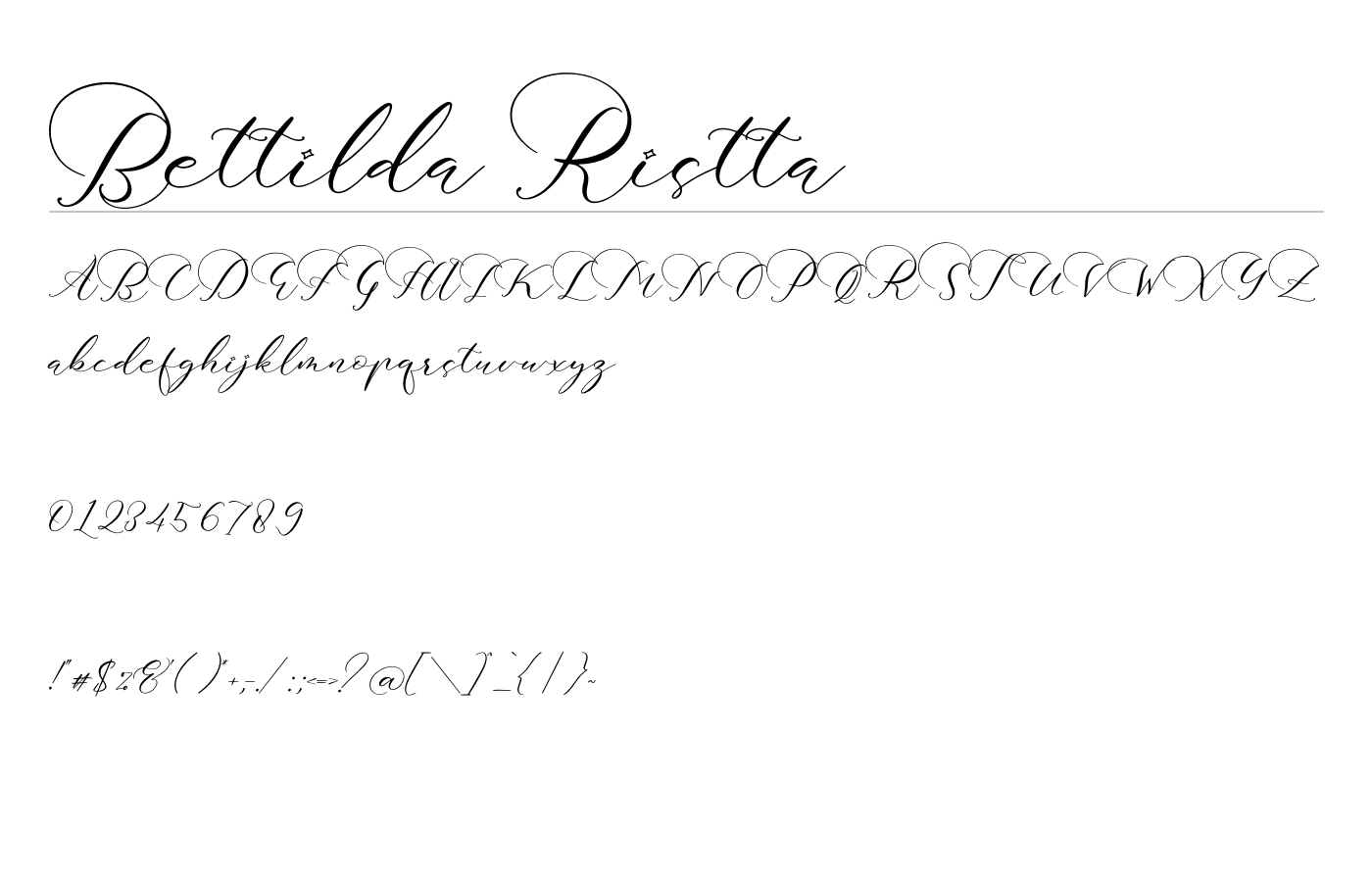
Bettilda Ristta is an elegant script font featuring delicate, flowing strokes with graceful loops and a refined, handwritten feel. Its light weight and high contrast give it a sophisticated and airy appearance, making it perfect for wedding invitations, luxury branding, and stylish editorial designs that require a touch of romance and charm. This font shines in decorative uses where a refined, personal touch is desired.
Bettilda Ristta Font
About Bettilda Ristta Font